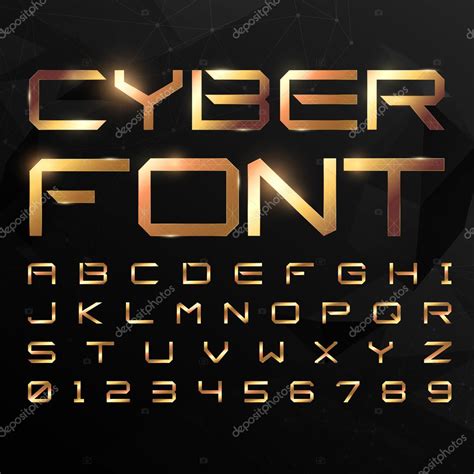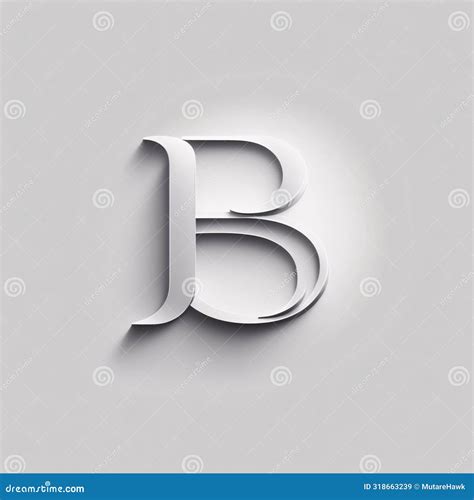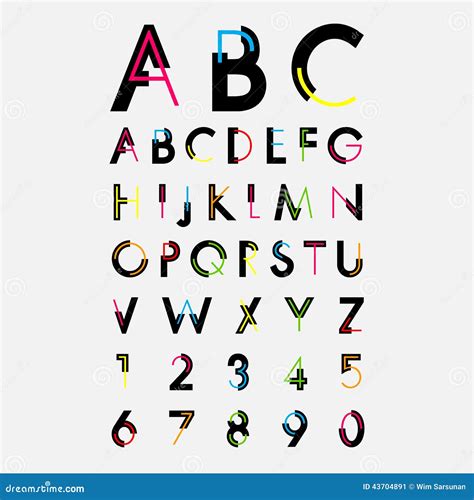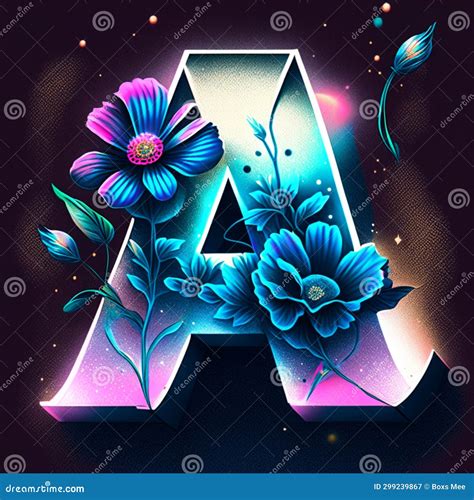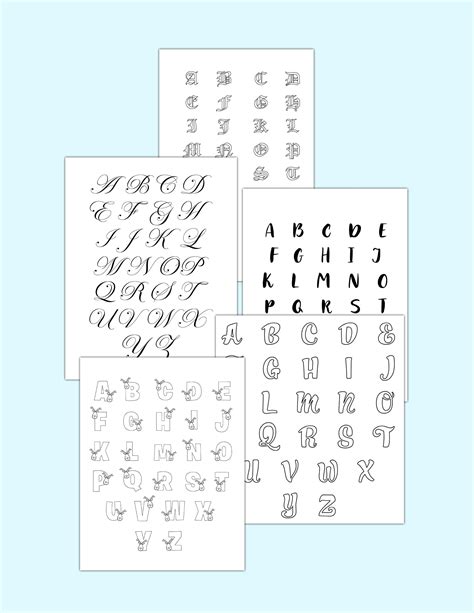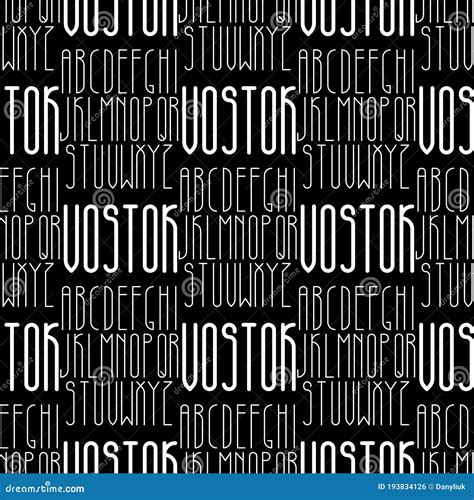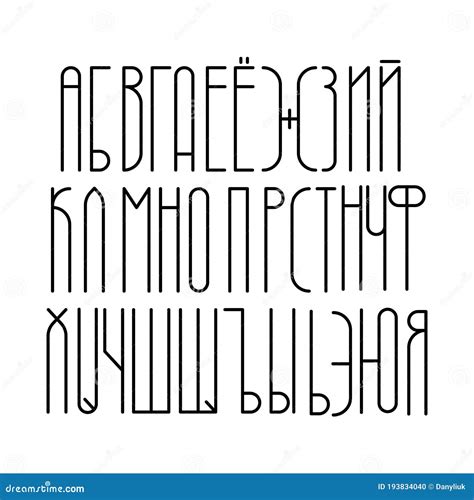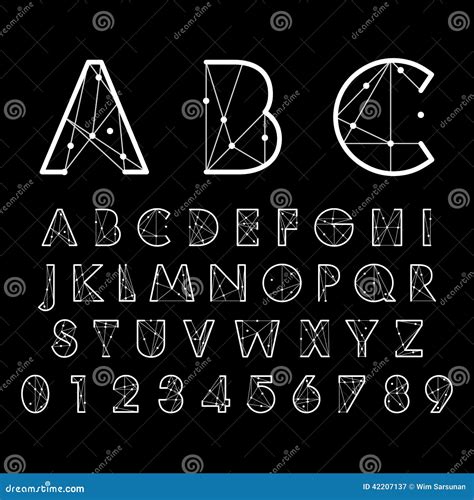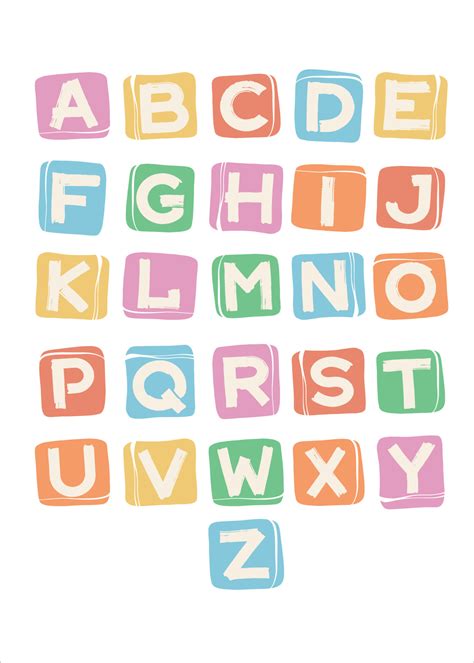
The visual landscape of communication relies heavily on composition, where Alphabetic Baptistery service as the foundational elements for conveying meaning, tone, and brand identity. Whether you are crafting a minimalist logo, designing a high-conversion landing page, or set a graeco-roman novel, the choice of typeface defines how your content is perceive by the hearing. While many treat composition as a junior-grade fear, the structural unity of letterforms play a polar role in readability and user engagement. As we navigate the digital era, understanding the nuances of quality anatomy - from serif to x-heights - is essential for any designer purpose to make timeless work. By dominate the covering of these fonts, you lift simple text into a measured optical strategy that commands attention and improves information retentivity.
The Evolution and Anatomy of Type
Composition has develop from the rigid, metal-cast missive of the Gutenberg insistency to the extremely variable, antiphonal font files of the modern web. To truly harness the power of Alphabetic Case, one must interpret their canonic figure. Every quality is composed of specific parts, such as the baseline, ascender, descenders, and apertures. These component prescribe how characters interact with one another, touch everything from kerning to optic rhythm.
Classifying Typefaces for Better Design
Not all baptistery are make equal; they descend into distinct categories that order their ideal use lawsuit. Recognise these classifications helps designers debar the pitfall of uneven typography:
- Serif Fonts: Delineate by the small strokes at the end of character stems. These are traditionally associated with say-so, dependability, and print medium.
- Sans-Serif Fonts: Qualify by clean, minimalist lines without decorative strokes. They are the standard for digital blind and modern interface design.
- Script Baptistry: Mimic handwriting or chirography, ideal for invitations or trademark that requires a human, personal touch.
- Display Fonts: Design specifically for headlines and large-scale applications where aesthetic wallop outweighs paragraph-level legibility.
Choosing the Right Font for Your Project
Select the pure fount is a balancing act between readability and stylistic expression. A font that appear stunning in a logo might be completely illegible when utilise for a 500-word blog place. Consider the postdate table to assist guide your decision-making process based on the intended medium.
| Medium | Preferred Style | Why? |
| E-Books & Long Articles | Serif or unclouded Serif-like | Reduces eye fatigue and improves character recognition |
| Mobile Covering | Sans-Serif | Optimized for varying pixel concentration and smaller blind |
| Mark Advertising | Display or Bold Serif | Grabs immediate attention from a length |
💡 Tone: Always prioritise readability over novelty. Even the most esthetic fount miscarry if the subscriber struggle to decipher the message within three bit.
The Role of Variable Fonts
In contemporaneous web design, Alphabetical Typeface have entered a new level with the coming of varying technology. Rather of charge freestanding file for boldface, italic, and light-colored weight, varying face let for a single file to contain a continuous compass of style. This optimizes loading hurrying and ply decorator with granular control over the weight, width, and slant of the typography, get antiphonal pattern more fluid and precise.
Typography Best Practices
Design is not just about the selection of the typeface, but how it is manipulated within the layout. Implementing standard good practices will ensure your schoolbook rest approachable to all users.
- Limit Font Pairs: Using more than three distinct case in a single document often direct to optic clutter. Stick to one for headers and one for body copy.
- Focus on Hierarchy: Use sizing, weight, and color to guide the reader's eye. The most significant information should always be the most prominent.
- Respect Line Height: Also known as leading, proper line superlative is essential for paragraph legibility. Too tight, and text get a wall of black; too loose, and the connection between line is lose.
💡 Tone: Quiz your typography across multiple devices. A case that looks crisp on a desktop monitor may seem lean or pixelated on a low-end smartphone screen.
Typography serves as the optical phonation of pen message, bridge the gap between raw information and meaningful communication. By translate the classifications, anatomy, and technical essential of several styles, you can see that your blueprint selection stay both beautiful and extremely functional. Whether prefer for the timeless custom of seriph or the streamlined efficiency of mod sans-serifs, body in coating remains the authentication of skillful blueprint. As trends keep to switch toward variable and high-performance option, the core rule of readability and hierarchy remain the most vital puppet in your creative armoury. Investing time into understanding the finer points of letterforms will doubtless ensue in clearer, more impactful, and more professional communication through the serious-minded use of alphabetic baptistery.